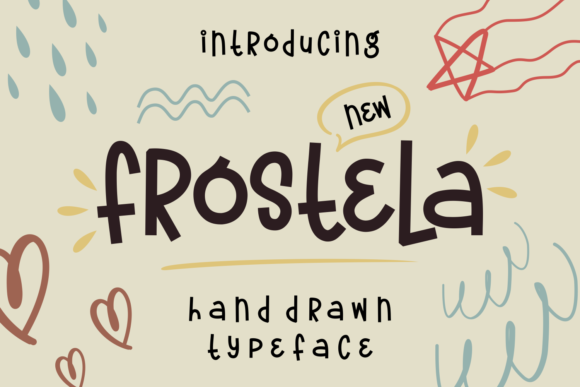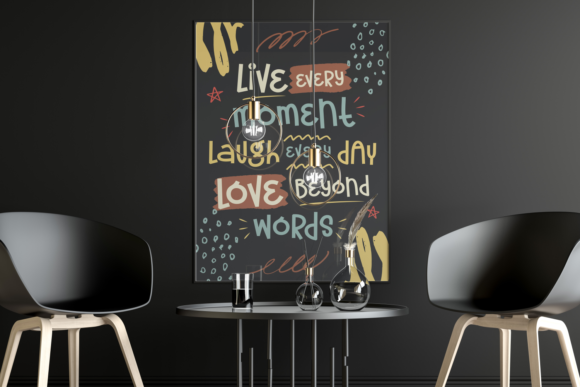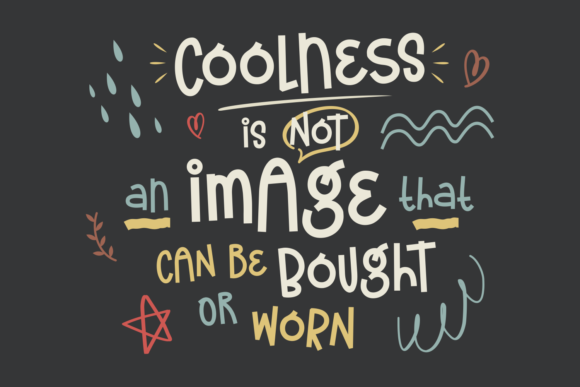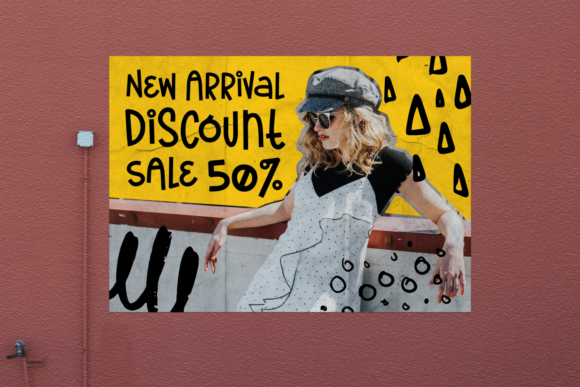
Frostela Font
About Frostela Font
The Frostela is a whimsical script. It’s handwritten and has a fun feel, which makes it perfect for adding a playful touch to your designs.